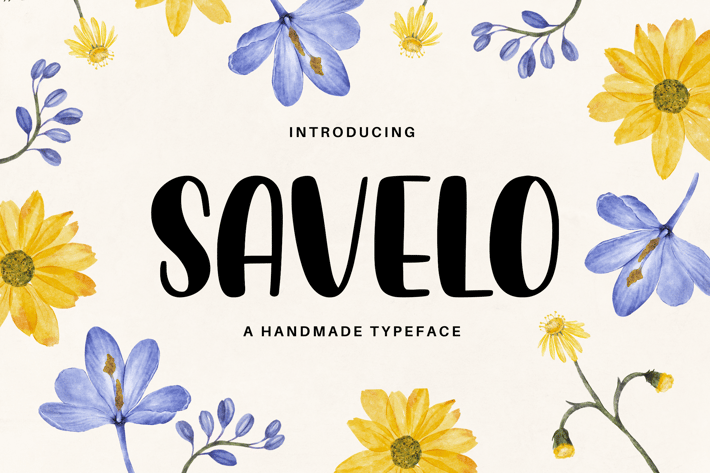
Savelo - A Handmade Typeface
Savelo is an exceptional handmade typeface that captures the essence of artistic expression and creativity. With its unique hand-drawn aesthetic and carefully crafted letterforms, Savelo adds a delightful touch of personality to any design.
Whether you're working on branding projects, product packaging, or creative marketing materials, Savelo's distinctive charm and playful appeal will infuse your work with a sense of warmth and individuality. Bring your designs to life with Savelo and unlock a world of artistic possibilities that will captivate your audience and leave a lasting impression of creativity and originality.
Discover the joy of artistic expression and creativity with Savelo, the handmade typeface that brings a unique and playful touch to your designs. With its handcrafted charm and expressive letterforms, Savelo is the perfect choice for designers looking to add a sense of artistry and originality to their projects.
Whether you're creating eye-catching logos, engaging social media graphics, or captivating poster designs, Savelo's handmade aesthetic will help your work stand out and resonate with audiences who appreciate the beauty of artistic expression and individuality.
Savelo is an exceptional handmade typeface that captures the essence of artistic expression and creativity. With its unique hand-drawn aesthetic and carefully crafted letterforms, Savelo adds a delightful touch of personality to any design.
Whether you're working on branding projects, product packaging, or creative marketing materials, Savelo's distinctive charm and playful appeal will infuse your work with a sense of warmth and individuality. Bring your designs to life with Savelo and unlock a world of artistic possibilities that will captivate your audience and leave a lasting impression of creativity and originality.
Discover the joy of artistic expression and creativity with Savelo, the handmade typeface that brings a unique and playful touch to your designs. With its handcrafted charm and expressive letterforms, Savelo is the perfect choice for designers looking to add a sense of artistry and originality to their projects.
Whether you're creating eye-catching logos, engaging social media graphics, or captivating poster designs, Savelo's handmade aesthetic will help your work stand out and resonate with audiences who appreciate the beauty of artistic expression and individuality.